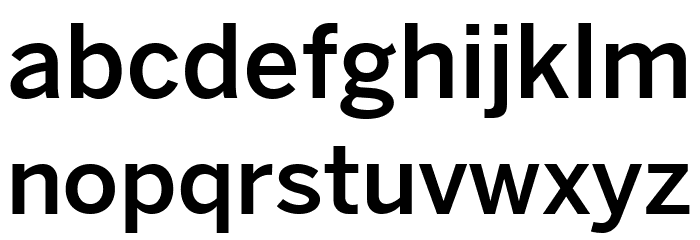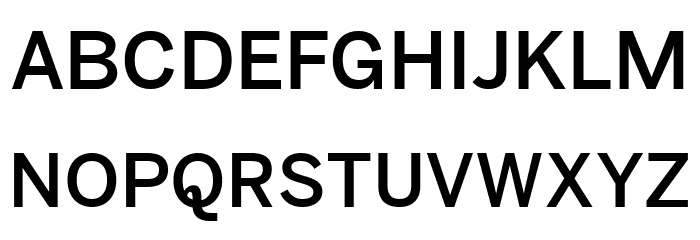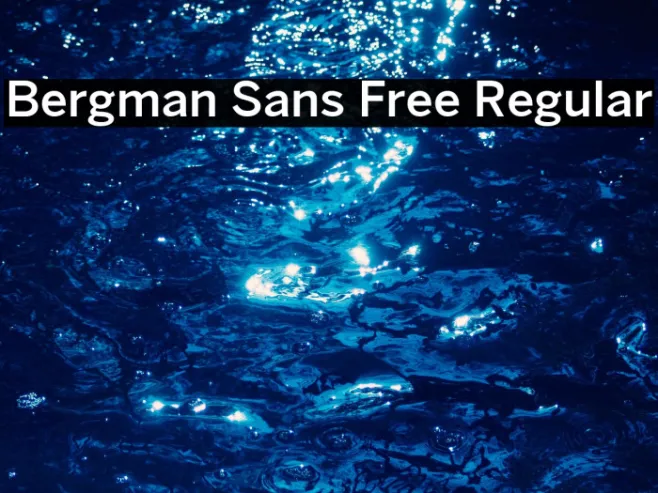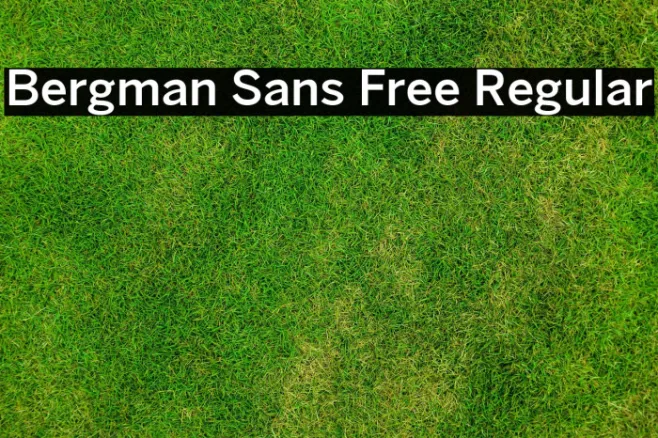
Bergman Sans Free Regular Font
This font presents a clean and modern sans-serif style, characterized by its simplicity and clarity. The letters are evenly spaced, providing excellent readability. The design is straightforward, with smooth curves and straight lines that give it a contemporary feel. The uppercase and lowercase letters maintain a consistent height, which contributes to its uniform appearance. The numbers and special characters are designed to match the overall aesthetic, ensuring a cohesive look across all text elements. This font is versatile and can be used in various design contexts, from digital to print media.
A clean, modern sans-serif font with excellent readability and uniform appearance.
- Font: Bergman Sans Free Regular
- Proposed Projects: Ideal for web design, branding, advertising, and editorial projects.